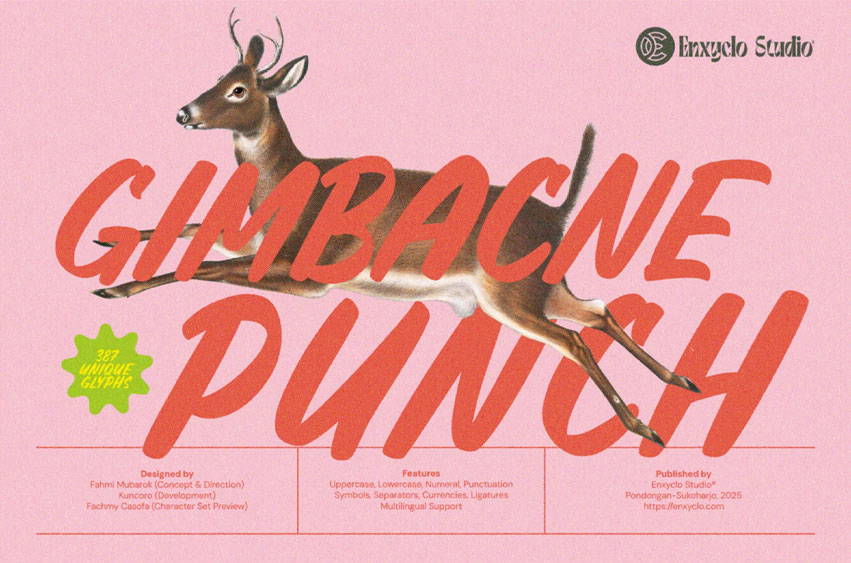
Gimbacne Punch Font
Gimbacne Punch Font is a bold and energetic brush font, perfect for projects that need a lively, artistic touch. With its thick strokes, dynamic curves, and modern-retro feel, this font is ideal for branding, posters, social media graphics, and more. The playful and handcrafted look makes it stand out in any design. Bring energy and creativity to your work with Gimbacne Punch!
Designed for designers, creators, and brands who dare to stand out, Gimbacne Punch is perfect for:
• Bold logos and brand identities
• Eye-catching posters and flyers
• Trendy social media posts and Instagram graphics
• Creative packaging
• Inspirational quotes and artistic headlines. Every letter is hand-brushed to deliver a natural and lively feel, making your designs look authentic and full of personality.
• 387 Glyphs
• Numeral, Punctuation & Symbols